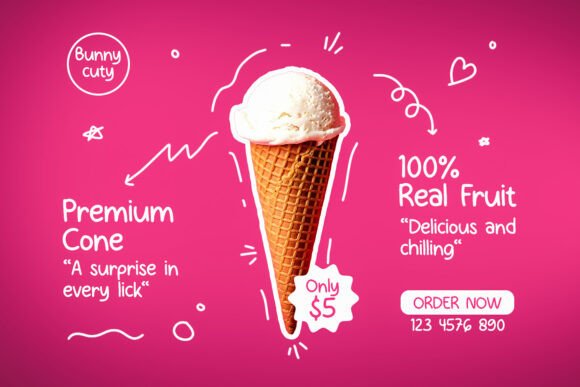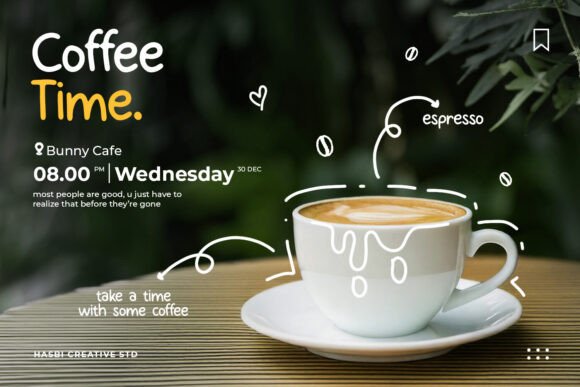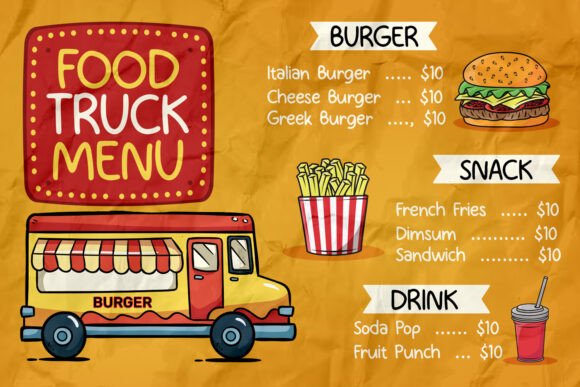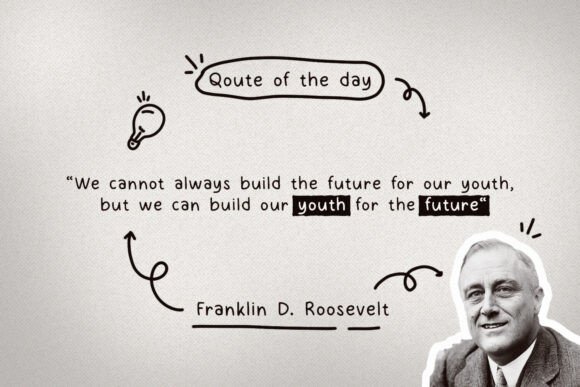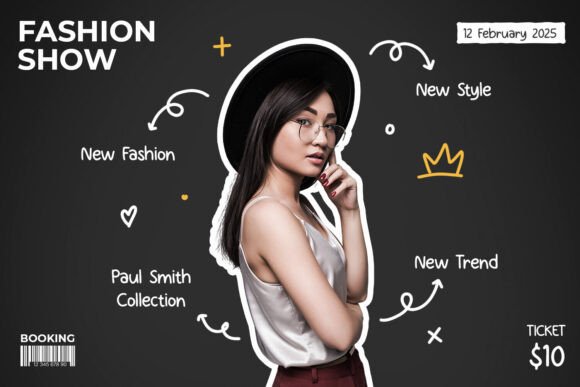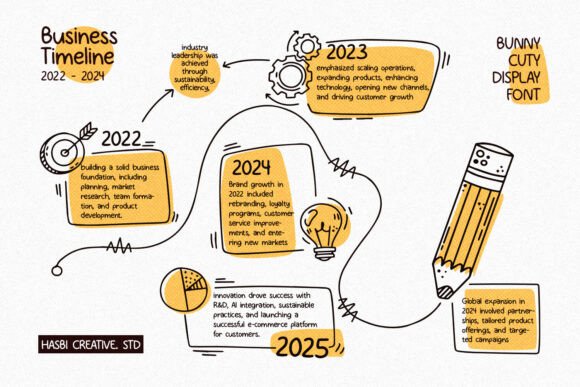
Meet Your New Design BFF: Bunny Cuty Font
Remember that moment when you stumbled upon a font that made your design project feel like a breath of fresh air? For many of us, that moment is a game-changer. It’s the moment when the words on your page start to sing, and your creativity takes flight.
Introducing Bunny Cuty Font, the playful display font that’s here to add a pinch of magic to your designs. Its bubbly letters are designed to make your words dance off the page with infectious delight. Whether you’re a seasoned designer or a creative newbie, Bunny Cuty Font is the perfect companion to bring your ideas to life. With its whimsical charm, this font is sure to make your designs stand out and capture the hearts of your audience.
Bunny Cuty Font Key Features
- Font Type: Bunny Cuty Font is a cute, cartoon-style font designed for various creative purposes.
- Unique Characteristics: Bunny Cuty Font features a unique, hand-drawn design with rounded edges and playful lines, adding a touch of whimsy to any text.
Bunny Cuty Font Review
Overall, I think the Bunny Cuty Font is a sweet and playful choice for designers looking to add some whimsy to their projects. ✨ The font’s rounded edges and childlike charm make it perfect for creating a friendly and approachable atmosphere. ✨ I particularly love how the font works well for titles and headings, adding a touch of personality to any design.
- Font versatility: Bunny Cuty Font can be used in a variety of contexts, from branding and advertising to digital products and print materials.
- Expressive style: The font’s playful style makes it perfect for designers who want to add a touch of humor and personality to their work.
- Scalability: Bunny Cuty Font looks great at various font sizes, from small captions to large titles.
However, I do have a few concerns about the font’s limitations. ⚠️ One of the main issues is that the font might not be suitable for formal or professional designs, as it can come across as too childish. ⚠️ Additionally, the font’s legibility can suffer at very small font sizes, making it difficult to read in certain contexts.
Overall, I think the Bunny Cuty Font is a great choice for designers who want to add a touch of fun and personality to their work. While it may have some limitations, the font’s unique style and versatility make it a valuable addition to any designer’s toolkit.
For the best results, use Bunny Cuty Font for titles and headings to add a playful touch.
For a professional look, pair Bunny Cuty Font with a clean sans-serif font for body text.
For a cohesive look, use Bunny Cuty Font consistently throughout your presentation or document.
Use Bunny Cuty Font for:
- Children’s books and educational materials.
- Party invitations and decorations.
- Food labels and packaging.
For the most impact, pair Bunny Cuty Font with bright colors and playful graphics.
Alternatives to Bunny Cuty Font
The Bunny Cuty Font is a playful, cursive font often used for children’s products and illustrations. However, designers may be looking for alternatives that offer similar qualities but with a different style or tone. Here are a few options:
Great Vibes Font is a modern, cursive script font that evokes a sense of elegance and sophistication. It is ideal for use in invitations, greeting cards, and other formal occasions where a touch of whimsy is desired. Compared to Bunny Cuty Font, Great Vibes has a more refined and polished look, making it suitable for a wider range of applications.
Dancing Script Font is a fun, cursive font that is reminiscent of handwritten script. It is perfect for use in children’s books, party invitations, and other playful applications where a sense of movement and energy is desired. Compared to Bunny Cuty Font, Dancing Script has a more dynamic and expressive quality, making it ideal for projects that require a sense of fun and playfulness.